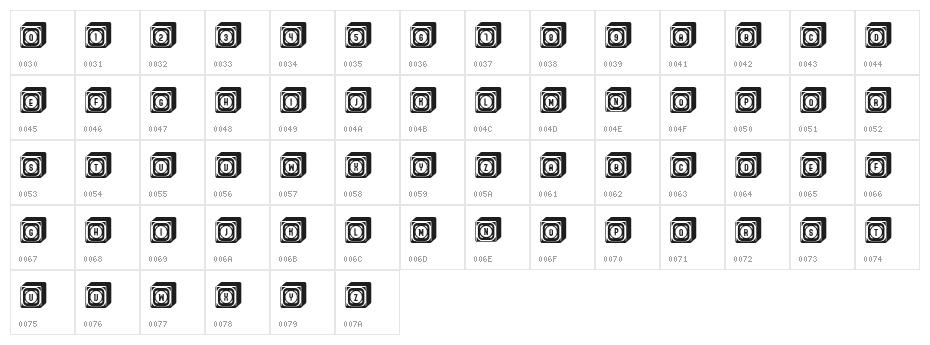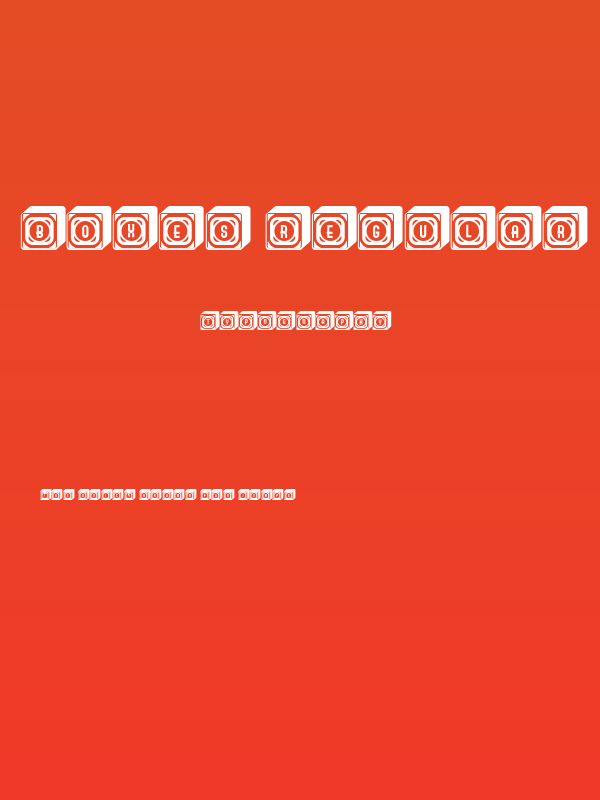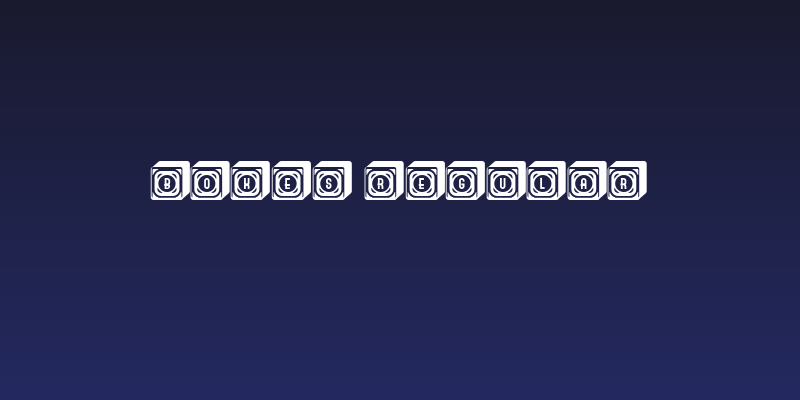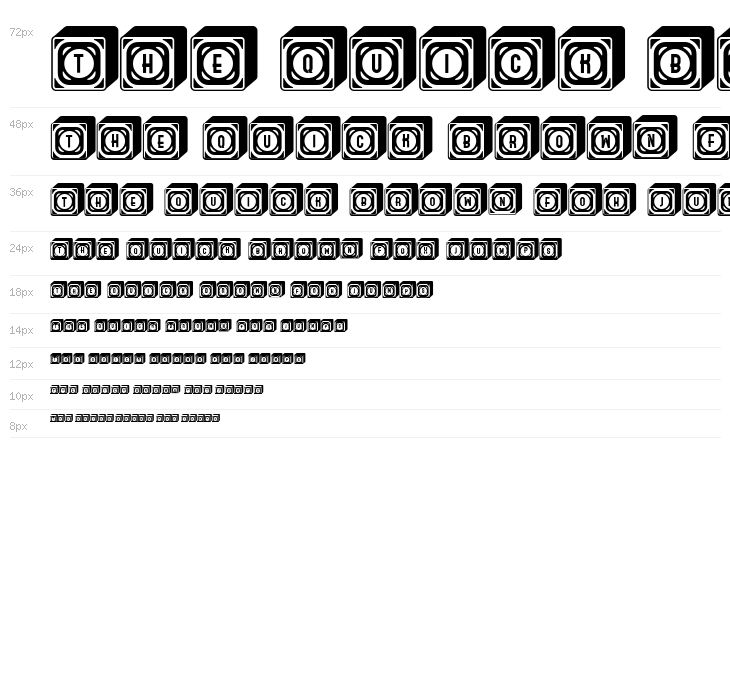
Boxes Regular Font
Boxes Regular Description
This font features a bold, three-dimensional style where each character is encased within a square box, giving it a distinct and playful appearance. The letters and numbers are centered within these boxes, which have a shadow effect that adds depth and dimension. The characters themselves are sans-serif, with clean lines and a modern aesthetic. The overall look is both decorative and structured, making it stand out in any design. The uniformity of the boxes ensures a consistent visual rhythm, while the shadowing provides a dynamic and engaging effect.
| Proposed Projects | Ideal for children's book covers, playful branding, posters, and creative packaging designs. |